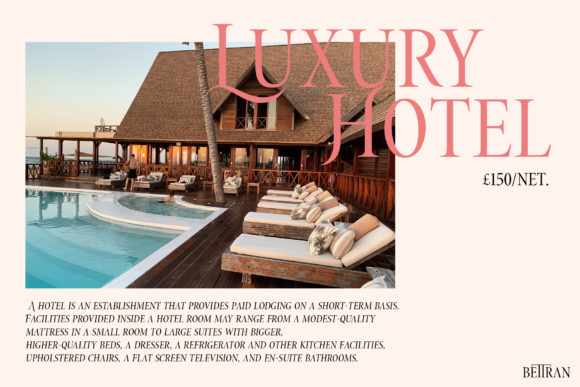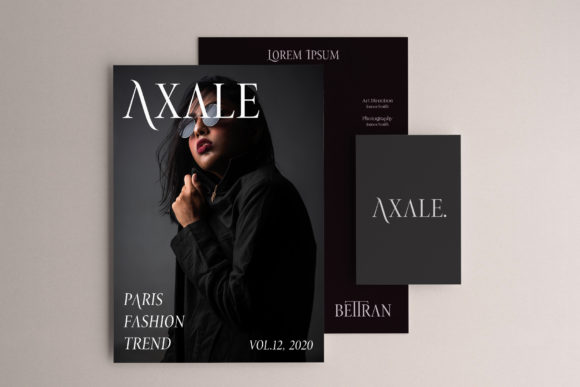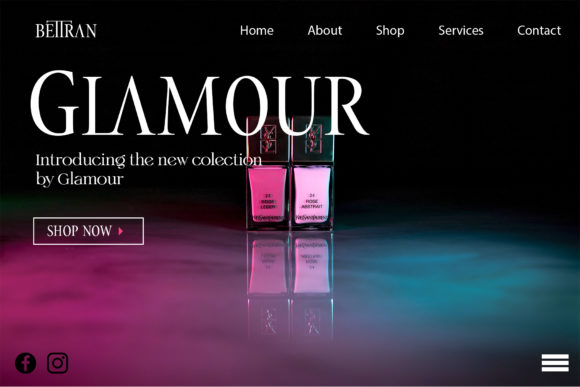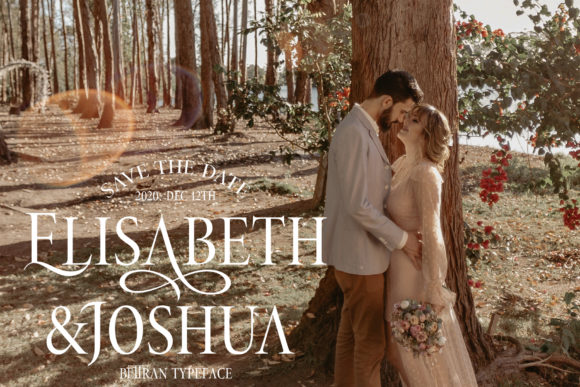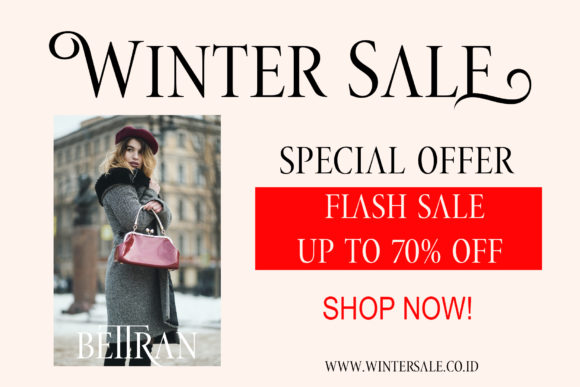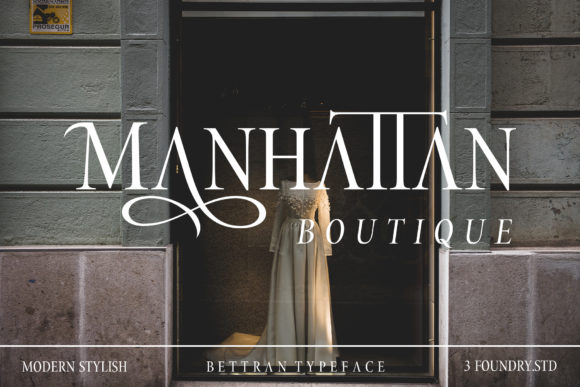
Introducing Bettran Font: The Sweet and Friendly Serif Font for Your Design Needs
Are you a designer or crafter looking for a font that can add a touch of sweetness and friendliness to your designs? Look no further than Bettran Font! This beautiful serif font is perfect for a wide range of design projects, from invitations and greeting cards to branding and advertising materials. In this article, we’ll take a closer look at Bettran Font and explore its unique features, uses, and benefits.
A Sweet and Friendly Serif Font
Bettran Font is a sweet and friendly serif font that is sure to capture the hearts of designers and crafters alike. Its natural and unique style makes it incredibly fitting for a large pool of designs, from modern and trendy to classic and elegant. The font’s serif details add a touch of sophistication and elegance, while its rounded edges and smooth lines give it a friendly and approachable feel.
The best part about Bettran Font is its versatility. The only limit is your imagination! You can use it to create a wide range of designs, including:
- Invitations and greeting cards for special occasions
- Branding and advertising materials, such as logos and brochures
- Blog and website headers and content
- Digital and print crafts, such as planners and journals
Whether you’re designing for personal or professional use, Bettran Font is sure to inspire your creativity and help you create stunning designs that capture the attention of your audience.
Key Features of Bettran Font
So, what makes Bettran Font so special? Here are some of its key features:
- Unique and natural style: Bettran Font has a one-of-a-kind design that sets it apart from other serif fonts.
- Sweet and friendly feel: The font’s rounded edges and smooth lines give it a warm and approachable feel.
- Serif details: The font’s serif details add a touch of sophistication and elegance.
- Versatile: Bettran Font can be used for a wide range of design projects.
Tips for Using Bettran Font
Here are some tips for using Bettran Font in your designs:
- Experiment with different sizes and colors: Bettran Font looks great in a variety of sizes and colors, so don’t be afraid to experiment and find the perfect combination for your design.
- Pair it with other fonts: Bettran Font pairs well with other fonts, such as sans-serif fonts and script fonts.
- Use it for headings and body text: Bettran Font is suitable for both headings and body text, making it a great choice for a wide range of design projects.
In conclusion, Bettran Font is a sweet and friendly serif font that is perfect for designers and crafters looking for a versatile and unique font for their design needs. Its natural and unique style makes it incredibly fitting for a large pool of designs, and its endless possibilities make it a great choice for anyone looking to add a touch of sweetness and friendliness to their designs. So why wait? Download Bettran Font today and start creating stunning designs that capture the hearts of your audience!